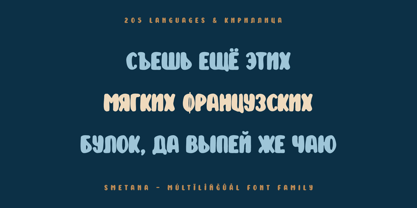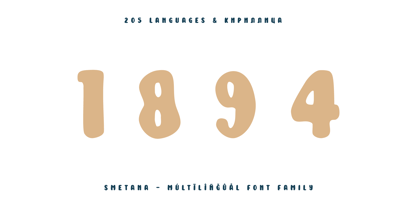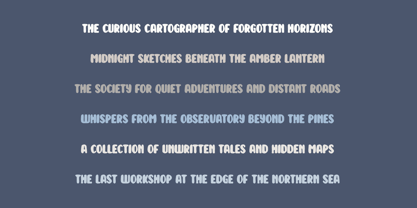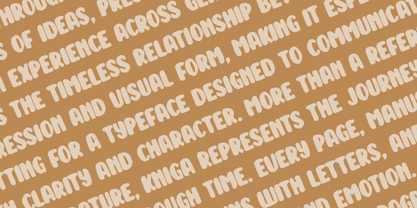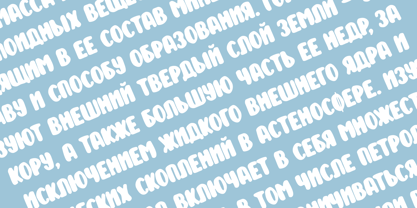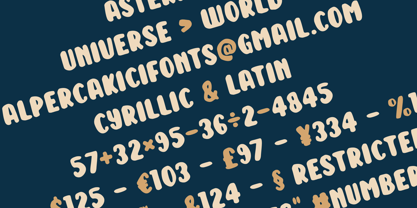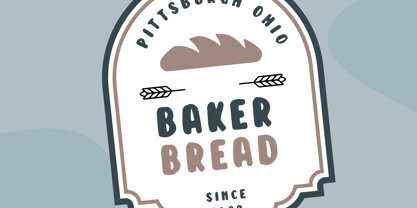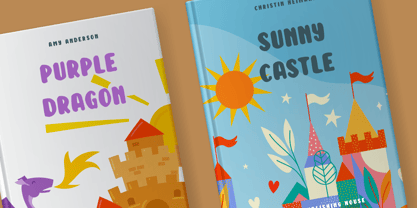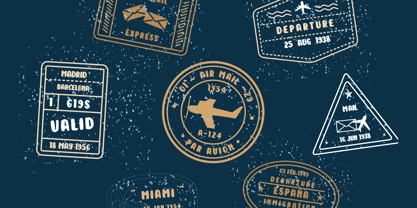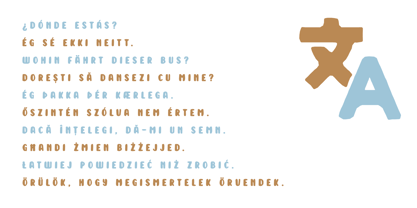
Smetana
The Smetana Font Family was designed by Alper Çakıcı and published by AlperCakici. Smetana contains 12 styles and family package options. More about this family
Smetana is a playful eroded display typeface that blends soft contours, worn textures, and handcrafted charm into a distinctive all-caps design. Inspired by weathered signage, vintage print imperfections, and childlike creativity, it delivers a warm and approachable personality while maintaining strong visual impact.
Every character is carefully shaped with rounded forms and subtle distressed details that create a naturally aged appearance without sacrificing legibility. The combination of soft geometry and textured edges gives Smetana a unique balance between friendly expression and rustic authenticity, making it suitable for both nostalgic and contemporary design projects.
Designed as a multilingual typeface with extensive Latin and Cyrillic language support, Smetana includes 563 glyphs and offers broad international usability. Its versatile family contains twelve styles, allowing designers to move effortlessly between cleaner and more distressed looks while maintaining a consistent visual identity.
The family includes Regular, Italic, Aged, Aged Italic, Hazy, Hazy Italic, Old, Old Italic, Rough, Rough Italic, Outline, and Outline Italic styles. These variations provide creative flexibility for headlines, packaging, branding, children's products, posters, book covers, social media graphics, editorial layouts, merchandise, and playful visual identities.
Whether used for nostalgic branding, handmade packaging, educational materials, storybooks, seasonal promotions, or expressive display typography, Smetana brings warmth, character, and personality to every design. Its combination of soft construction, eroded textures, and versatile stylistic options makes it a memorable choice for projects that need a friendly voice with a touch of vintage charm.
Features:
• 12 font styles
• 563 glyphs
• Extensive Latin support
• Cyrillic support
• Multilingual coverage
• OpenType features
• Ideal for branding, packaging, posters, children's projects, and display typography